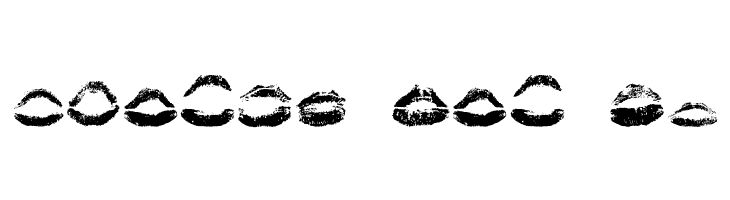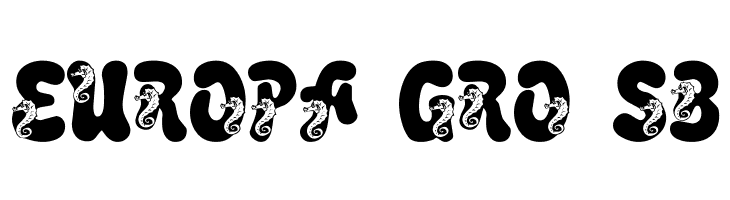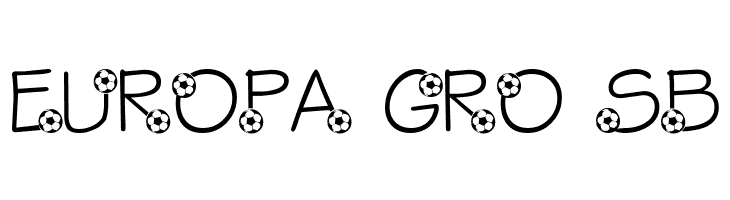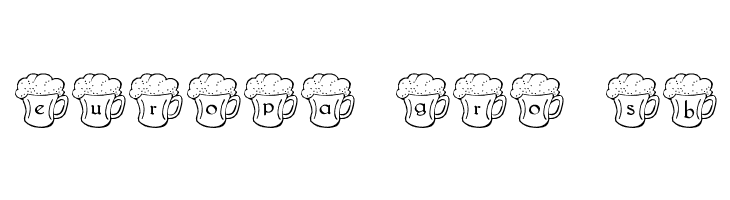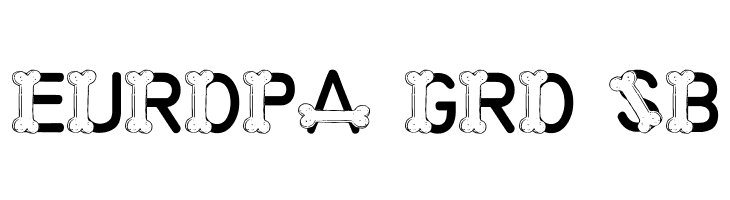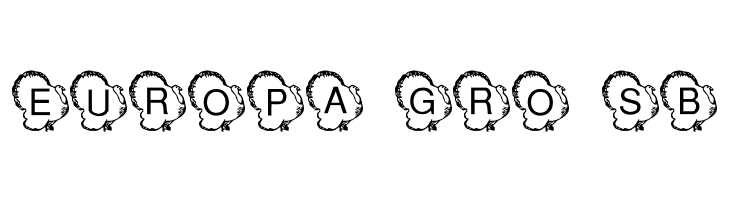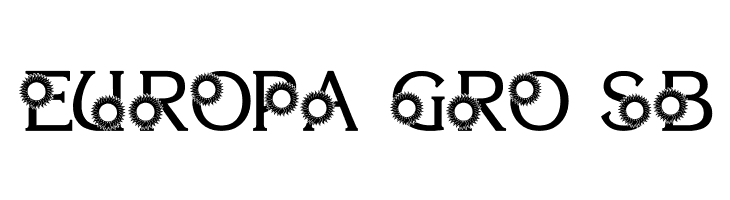
A bold, decorative font with seahorse embellishments, perfect for nautical themes.
A bold, decorative font with duck motifs on each letter, perfect for playful designs.
A whimsical font with letters nestled in Easter chick designs, perfect for festive projects.
A playful font with soccer ball motifs, ideal for sports-themed designs.
A whimsical font with characters integrated with bat illustrations, perfect for themed designs.
A whimsical font with characters inside frothy beer mugs, ideal for festive designs.
A playful font with bone-shaped characters, perfect for pet-themed designs.
A festive font with letters inside turkey silhouettes, perfect for holiday themes.
A decorative font with sunburst motifs encasing each character, ideal for creative projects.
A playful and artistic font made from lip print designs, perfect for creative projects.